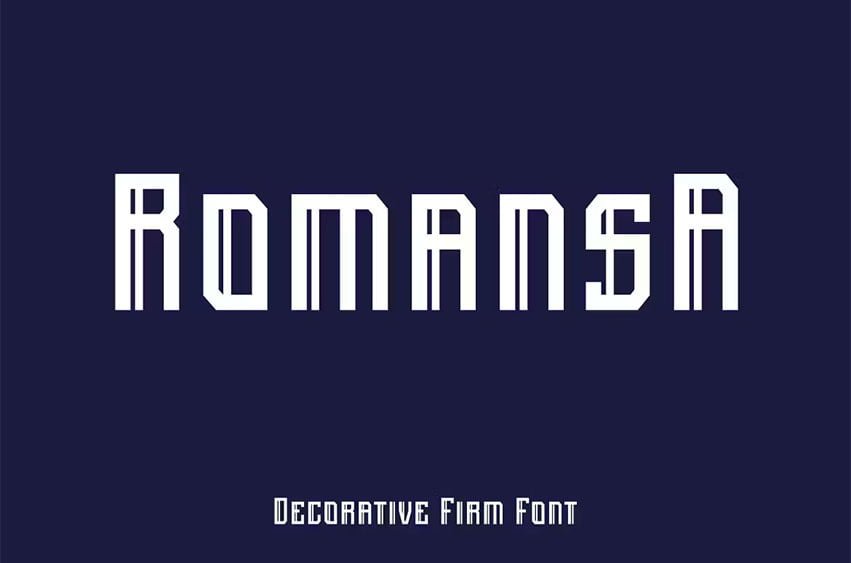
Romansa Font is a decorative font with a firm style. Romansa can be used in any work such as a flyer, book title, advertisement, social media content, logo and many more.